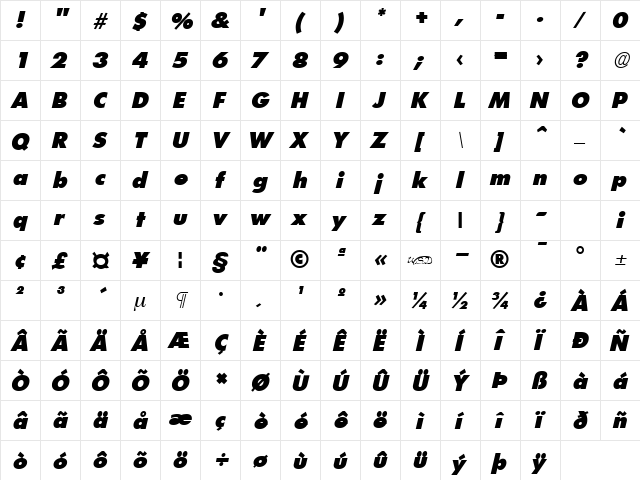
FuturistExtraHeavy Italic
Design Context for FuturistExtraHeavy Typeface
FuturistExtraHeavy has a distinctly futuristic character, with geometric precision and clean angles that feel at home in technology, gaming, and sci-fi contexts. The dynamic lean of this cut emphasises speed and emphasis in any layout.